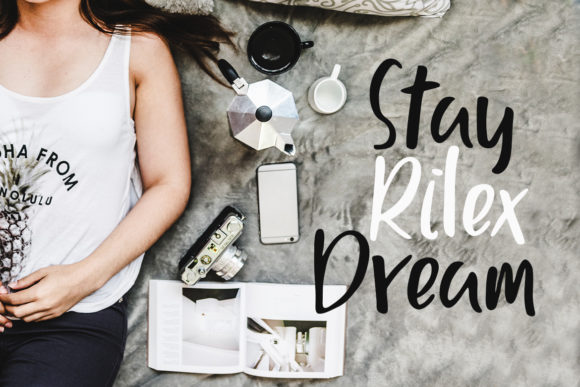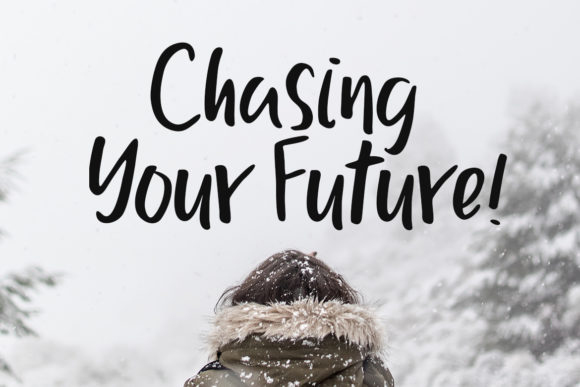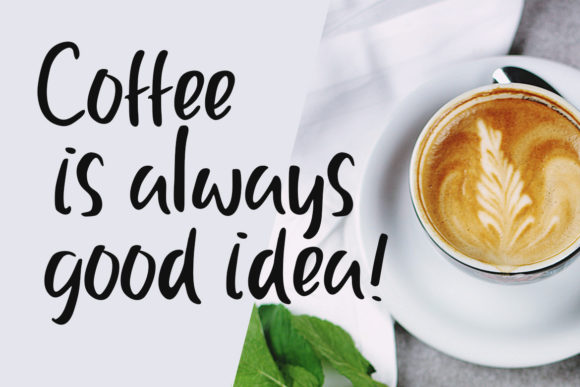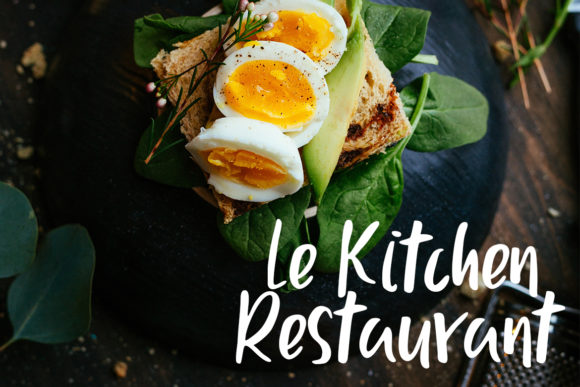
The Art of Handwritten Design: Introducing the Ballystic Font
Have you ever sat down with a cup of coffee, a notebook, and a pen, feeling inspired to create something beautiful? The world of design is full of moments like these, where the perfect font can bring a project to life. And that’s exactly what the Ballystic Font does – it adds a touch of elegance and personality to any design.
This stunning handwritten font is perfect for designers who want to add a human touch to their work. With its smooth curves and lines, the Ballystic Font is ideal for branding projects, logos, and any other design that needs a personal feel. Whether you’re working on a wedding invitation, a social media post, or a product label, this font is sure to make your design stand out.
Ballystic Font Key Features
- Unique Characteristics: Ballystic Font features a unique blend of modern and vintage elements, with a distinctive flair that sets it apart from other sans-serif fonts.
- Kerning and Ligatures: Ballystic Font includes advanced kerning and ligature pairs, ensuring seamless text flow and a professional look in both print and digital designs.
Ballystic Font Review
Overall, I think Ballystic Font is a solid addition to any designer’s toolkit, but it’s not without its quirks. Let’s dive in and see what it has to offer.
- The font’s unique blend of modern and vintage elements makes it perfect for creating eye-catching headlines and titles.
- The Ballystic Font has a high level of readability, even at smaller font sizes, which is a major plus for designers who need to work with limited space.
- The font’s versatility means it can be used across a wide range of projects, from logos and branding to digital displays and print materials.
- The font’s condensed shape can sometimes make it difficult to read, especially in situations where the text is already competing for attention.
- The lack of a true italic style can make it tricky to create emphasis and hierarchy in certain design situations.
- The font’s high level of detail can sometimes make it prone to over-processing, which can lead to a loss of clarity and definition.
In conclusion, Ballystic Font is a great choice for designers who want to add some flair and personality to their work. While it’s not without its limitations, the font’s unique charm and high level of readability make it a solid addition to any toolkit.
Tips for Getting the Most Out of Ballystic Font
Use Ballystic font to create eye-catching headlines and titles. Pair it with other fonts to create a unique and stylish visual identity. Experiment with different font sizes, colors, and effects to achieve the desired look.
Ballystic font is ideal for creative projects such as brochures, flyers, and social media graphics. It’s also suitable for branding and identity projects, such as logos and business cards. Use it to add a touch of sophistication and elegance to your designs.